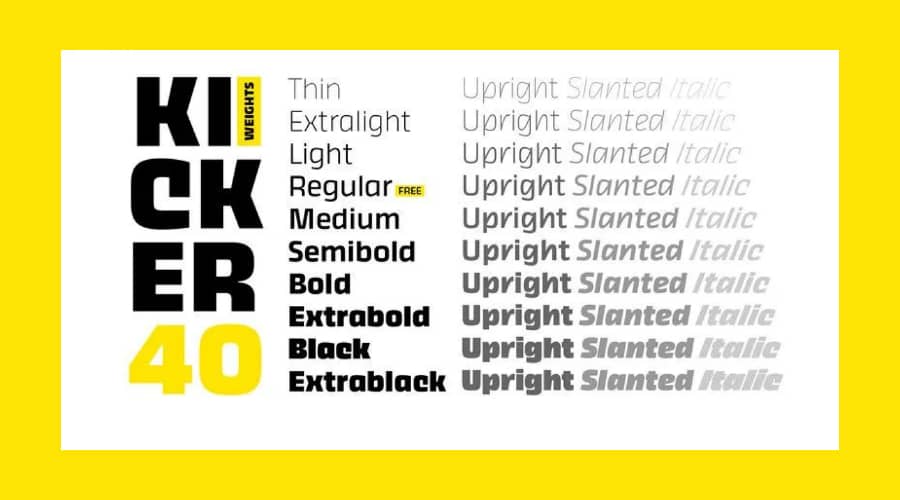
About Kicker Font Family
The Kicker Sans Serif Family is here! This is a family of modern sans-serif fonts. It was created specifically for modern design styles and applications. It’s ideal for adding an attractive modern touch to your design. It was created by Francesco Canovaro in collaboration with Andrea Tartarelli and released by Zetafonts. There are 982 glyphs, 44 typefaces, and 218 languages in it.
It was first created in the muscular extrablack weight with the aesthetics of high-power dynamic typefaces used in sports communication as a geometric sans typeface on steroids. The font then evolved in lighter weights, with vintage-inspired proportions and a somewhat squared style that pays homage to Novarese’s iconic Eurostile, which is synonymous with retro-futurism. The Font is compatible with Windows, Apple/Mac, Linux, Cricut, Silhouette, and other cutting machines. It’s simple to convert the lovely typography to a web font.
This font’s numerous influences allow it to be used for both dazzling display and successful logo design and finer editorial use in body text — with a natural propensity for effective and compelling advertising. Thicker complies with this by offering three distinct italic forms with varying slants, which is made even more customized by using variable font technology, which allows fine tweaking of the weight range and accurate choice of typeface slant.